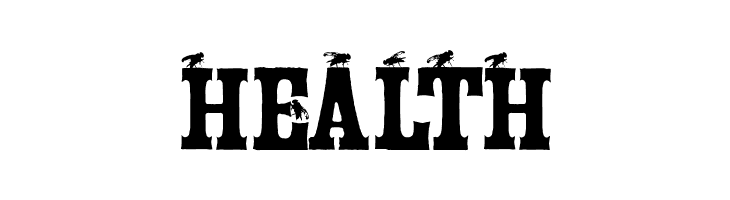
( Fonts by Thomas Ledin - tomledin.com )
A bold, playful font with a 3D effect and comic book style.
( Fonts by www.norfok.com - Norfok® Incredible Font Design - Thomas W. Otto )
A bold, abstract font with tribal-inspired curves and angles.
( Fonts by Tom Kolter - www.ghostsofbigfoot.com )
A bold, decorative font with unique fly motifs on each character.
( Fonts by Paul Reid - tracertong.co.uk )
A sleek, modern italic font with a futuristic design.